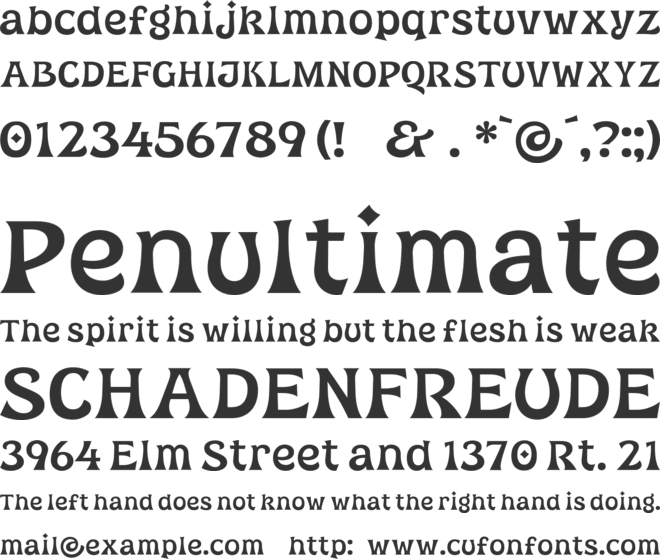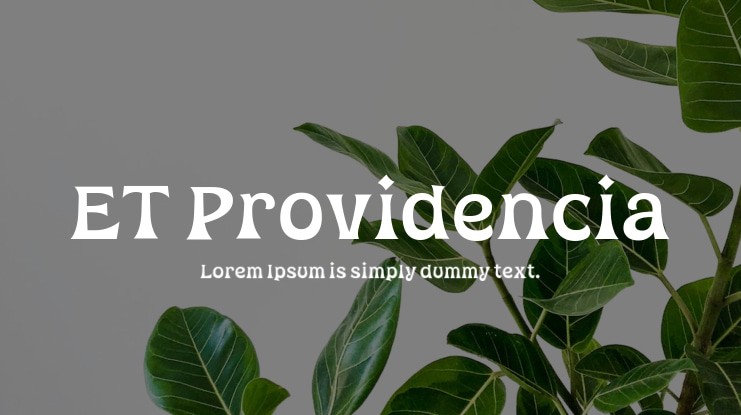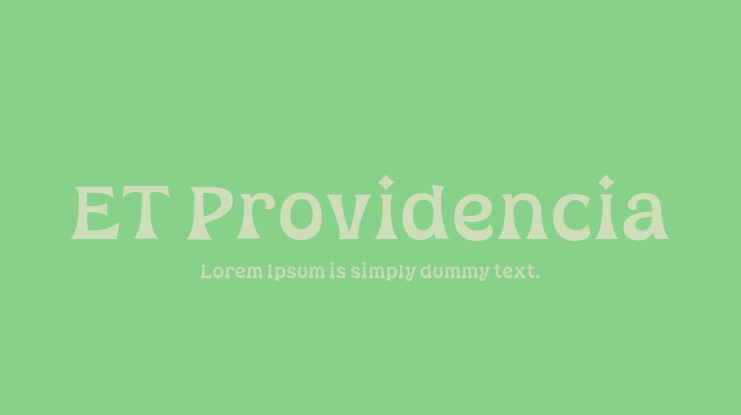
ET Providencia Font
Et Providencia Design began with a single uppercase "A" created for a lettering project. From there, we developed the initial design by extracting key elements from that letter. In the second phase, we refined some characters and introduced additional elements to bring more variety and personality to the typeface. The result is a warm and expressive typeface with a charming handmade aesthetic. You can download the beta version for free here.